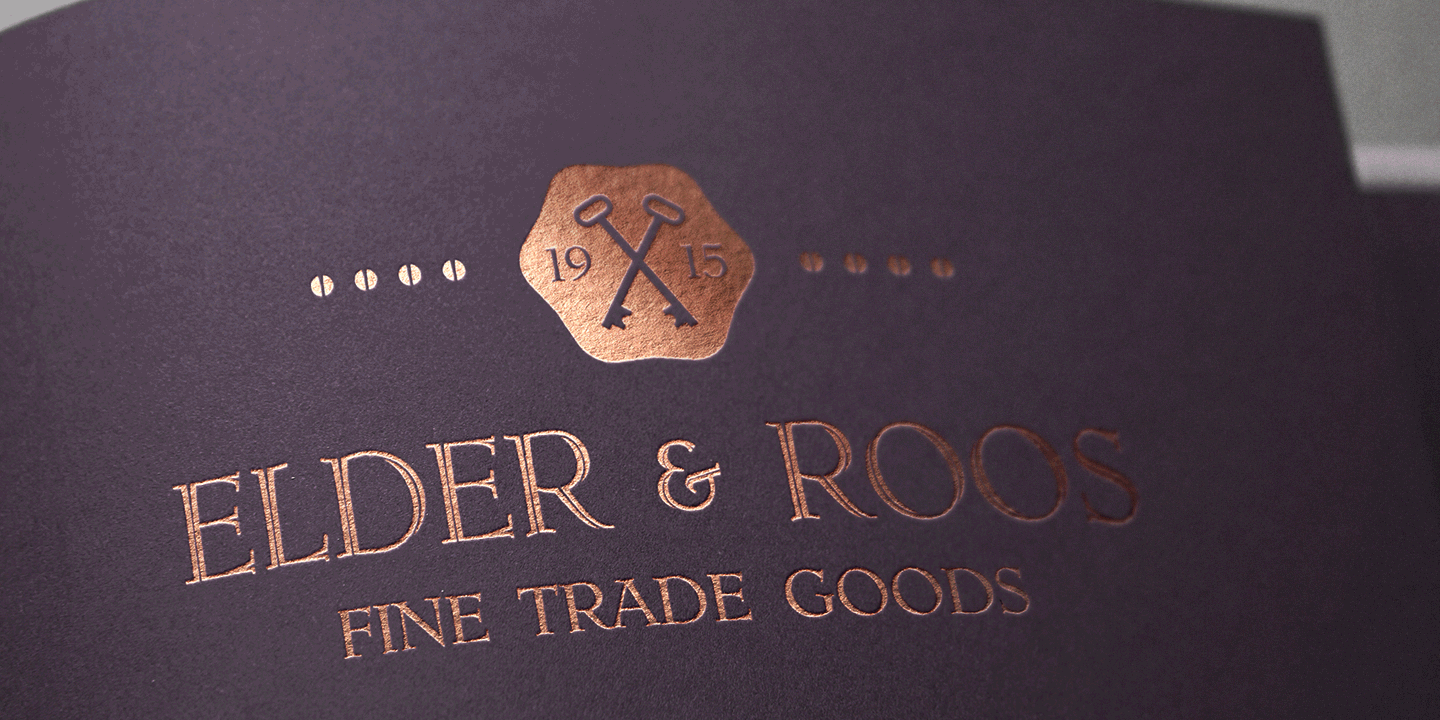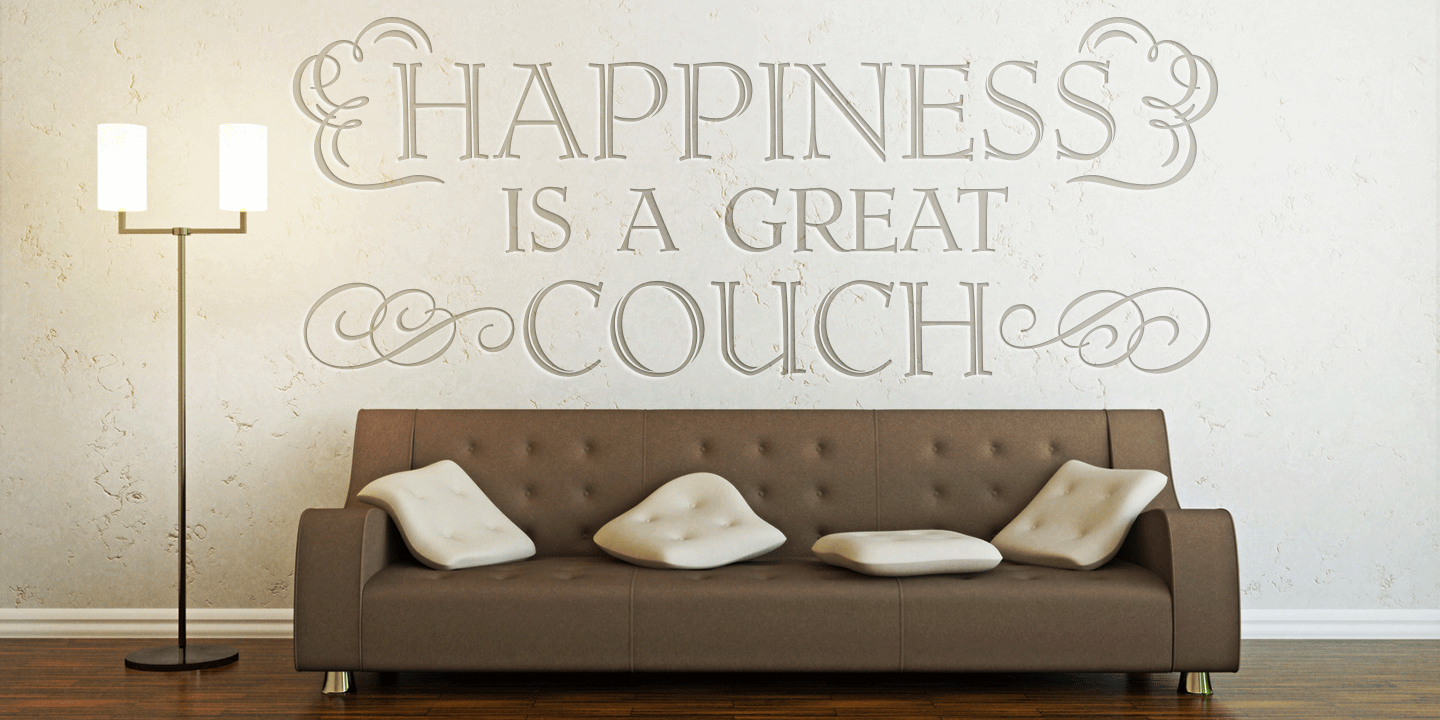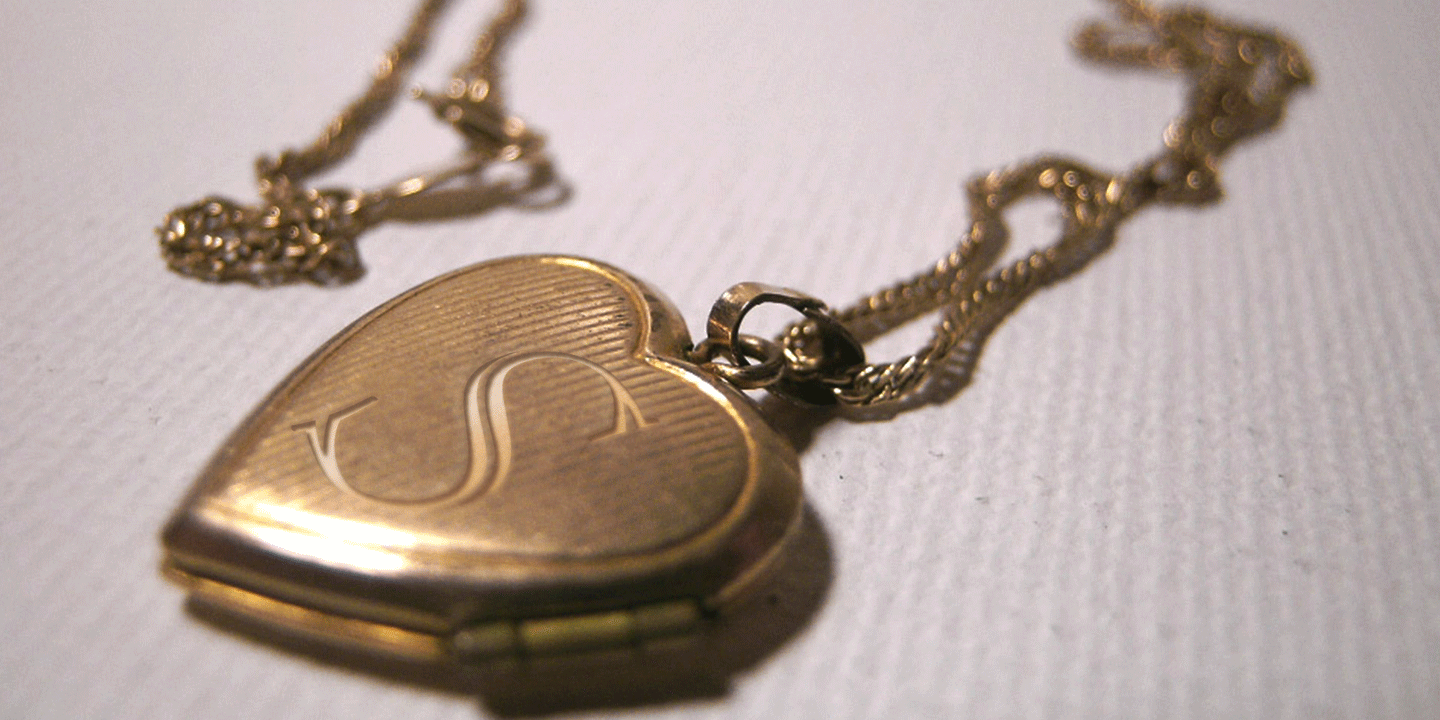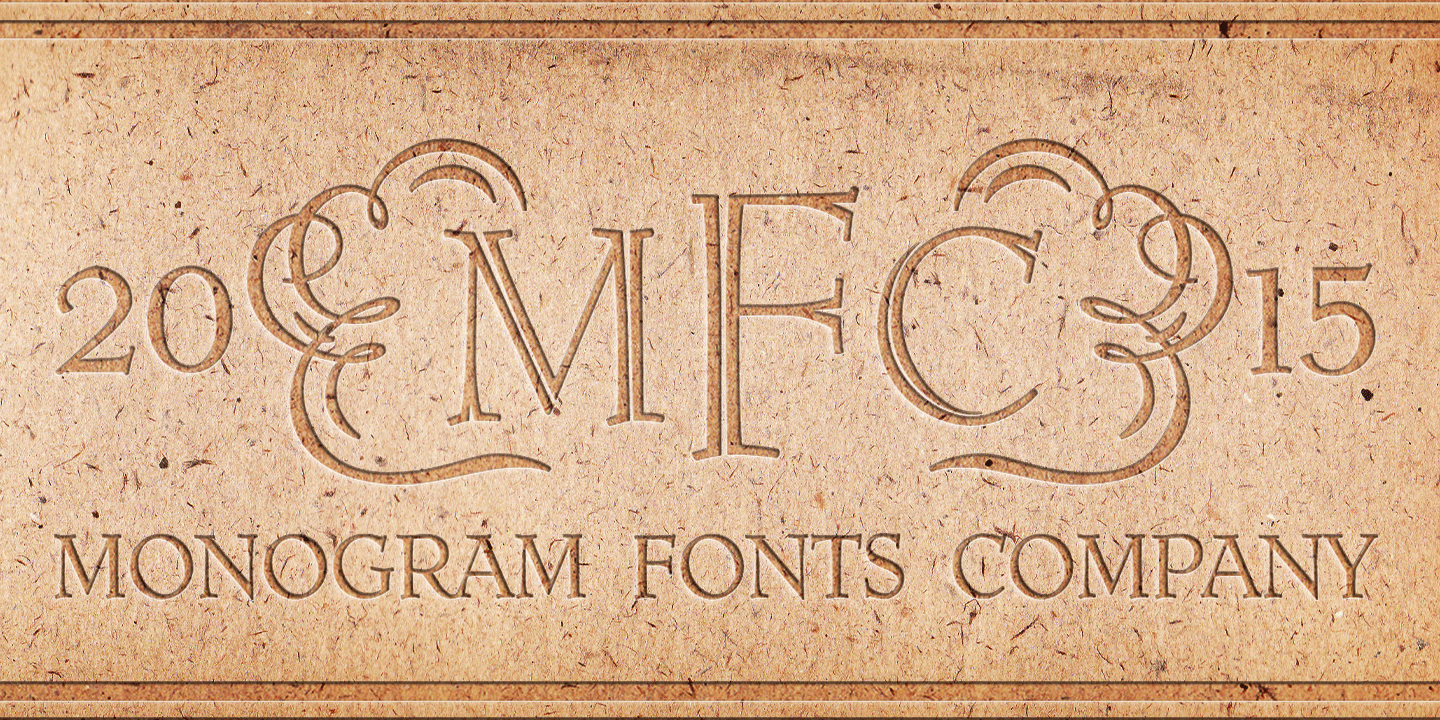
Ruse Monogram
Buy NowThe inspiration source for Ruse Monogram is a unique letterset called "DeRoos Inline" from an old type specimen tearsheet. To create more monogram versatility in the design, a solid version, as well as a scaled down numbering set and flourish ornamentation are also added to the font. Ruse Monogram is capable of several traditional monogram forms, in both solid and inline styles.
Ruse Monogram comes complete with both Pro and Standard format fonts. For those with programs that can take advantage of OpenType features, the Pro fonts are for you, but for others without the ability to use OpenType features, we've created separate fonts that make up the styles contained in the Pro font.